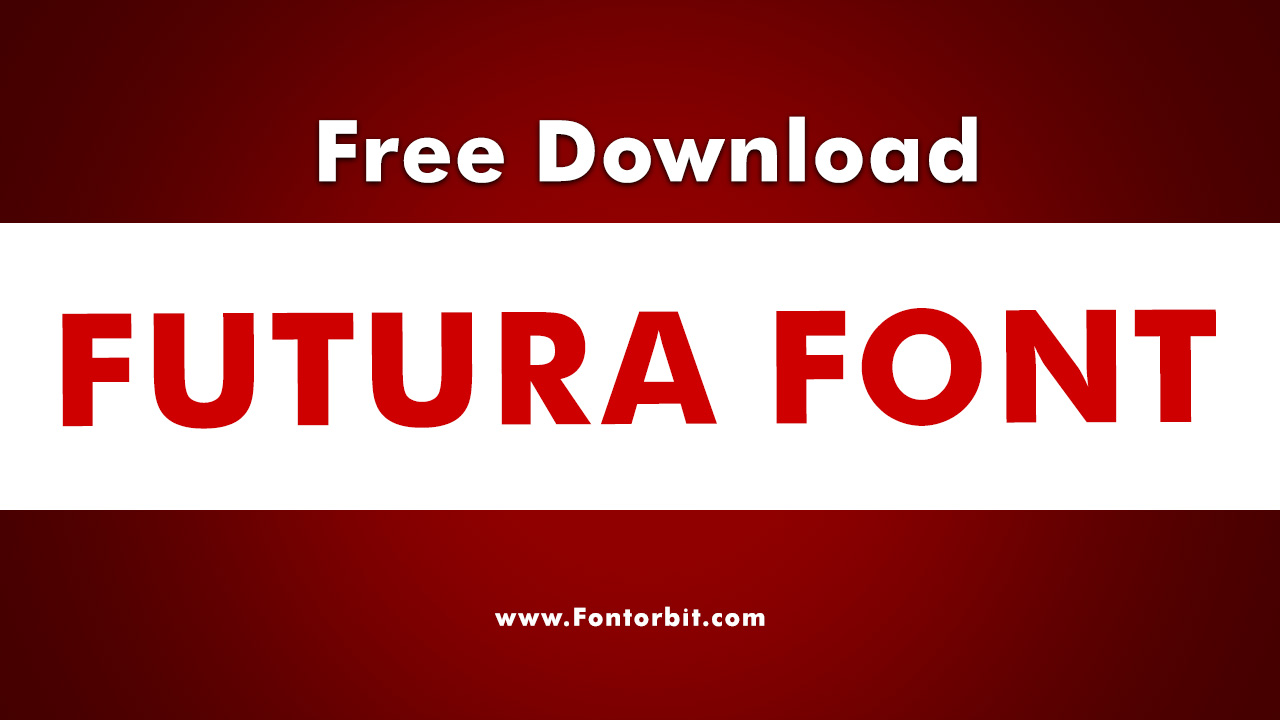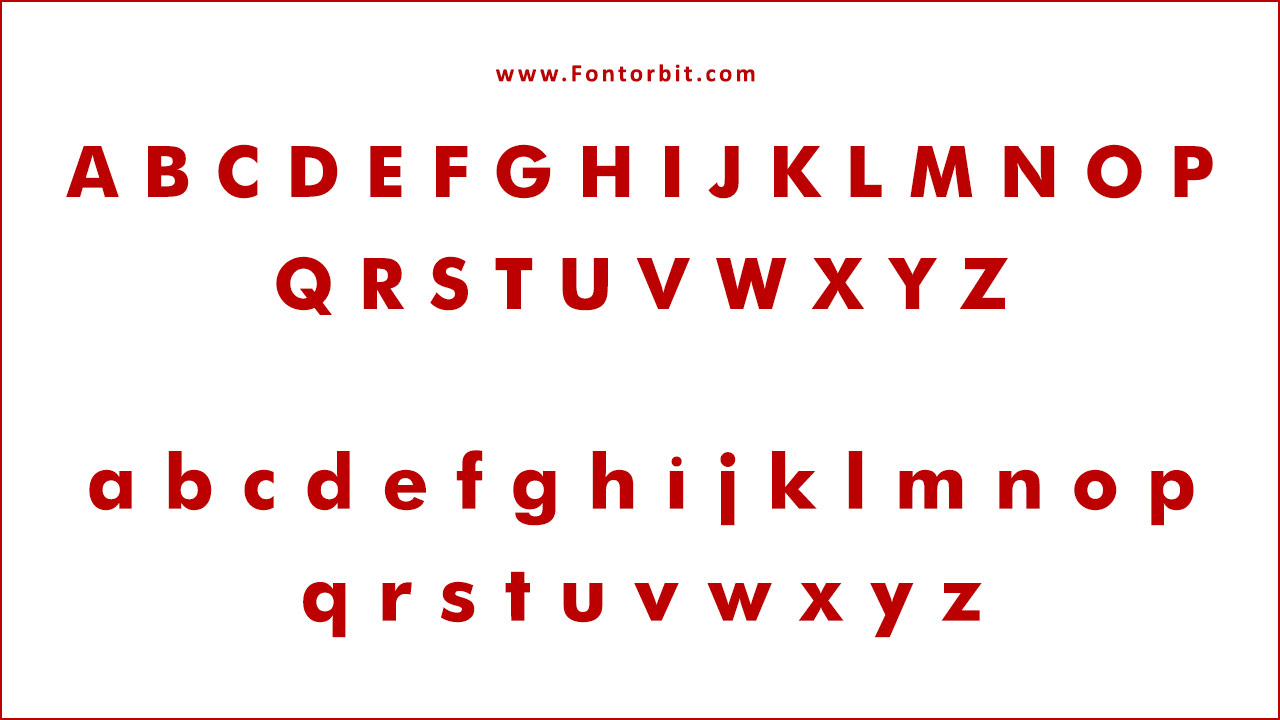
Futura font is a geometric sans-serif typeface designed by Paul Renner and released in 1927. Known for its clean lines and modernist style, Futura offers a versatile and timeless design that can be applied to various design projects. Due to its readability and aesthetic appeal, it is widely used across both print and digital media.
The Futura Font Family Includes
Futura’s design is characterized by its geometric shapes, with circles and straight lines forming the basis of its structure. This gives Futura a modern and minimalist look that is both functional and visually appealing. The Futura font family includes:
- Futura
- Futura Extra Black
- Futura Bold
- Futura Bold Italic
- Futura Book
- Futura Book Italic
- Futura Light BT
- Futura Medium BT
- Futura Medium Condensed BT
- Futura XBlk BT
- Futura Condensed Light
- Futura Heavy
- Futura Heavy Italic
- Futura Light
- Futura Light Italic
- Futura Medium Italic
- Futura Pro Display
- Futura Pro Black
- Futura Pro Light
- Futura Pro Light Oblique
- Futura Pro Book
- Futura Pro Book Oblique
- Futura Pro Medium
- Futura Pro Medium Oblique
- Futura Pro Bold
- Futura Pro Bold Oblique
- Futura Pro Heavy
- Futura Pro Heavy Oblique
- Futura Pro Extra Bold
- Futura Pro Extra Bold Oblique
- Futura Pro Light Condensed
- Futura Pro Light Condensed Oblique
- Futura Pro Medium Condensed
- Futura Pro Medium Condensed Oblique
- Futura Pro Bold Condensed
- Futura Pro Bold Condensed Oblique
- Futura Pro Extra Bold Condensed
- Futura Pro Extra Bold Condensed Oblique
Futura’s clean and modern design makes it a great choice for both formal and informal projects. Its versatility allows people to use it in a variety of contexts, from corporate branding to creative projects. Common applications of Futura include:
- Corporate Branding
- Advertisements
- Packaging
- Book Titles
- Magazine Headlines
- Digital Media
- User Interface Design
- Wayfinding Signage
- Print Materials
Futura Font Found In Use
Futura is often seen in professional and creative environments that benefit from its clean, modern appearance. It is widely recognized for its use by iconic brands and in various forms of media, contributing to its lasting popularity and influence in design.
Futura is a geometric sans-serif font with a sleek, modern design that has stood the test of time. Its versatile use in various design contexts—from branding to digital applications—demonstrates its enduring appeal. When paired with serif fonts or decorative elements, Futura creates a striking contrast that enhances visual appeal and readability.
Q1: Which Font Is Best For Modern, Minimalist Designs?
Fonts like Futura, Helvetica, and Avenir are great choices for modern, minimalist designs due to their clean lines and geometric structure.
Q2: What Are The Advantages Of Using Futura In Design Projects?
Futura offers a timeless, modern look that is both clean and versatile, making it suitable for various design applications including branding, advertising, and digital media.
Q3: How To Create A Font Pairing With Futura And Serif Fonts?
Pair Futura with a classic serif font like Garamond or Times New Roman for body text and use Futura for headlines to create a balanced, modern aesthetic.
Q4: What Are The Best Futura-Like Fonts For Digital Projects?
Q5: How To Create A Font Combination With Futura And Script Fonts?
Combine Futura with a script font like Pacifico or Brush Script for subheadings or accent text, using Futura for headings to maintain readability and add an elegant touch.